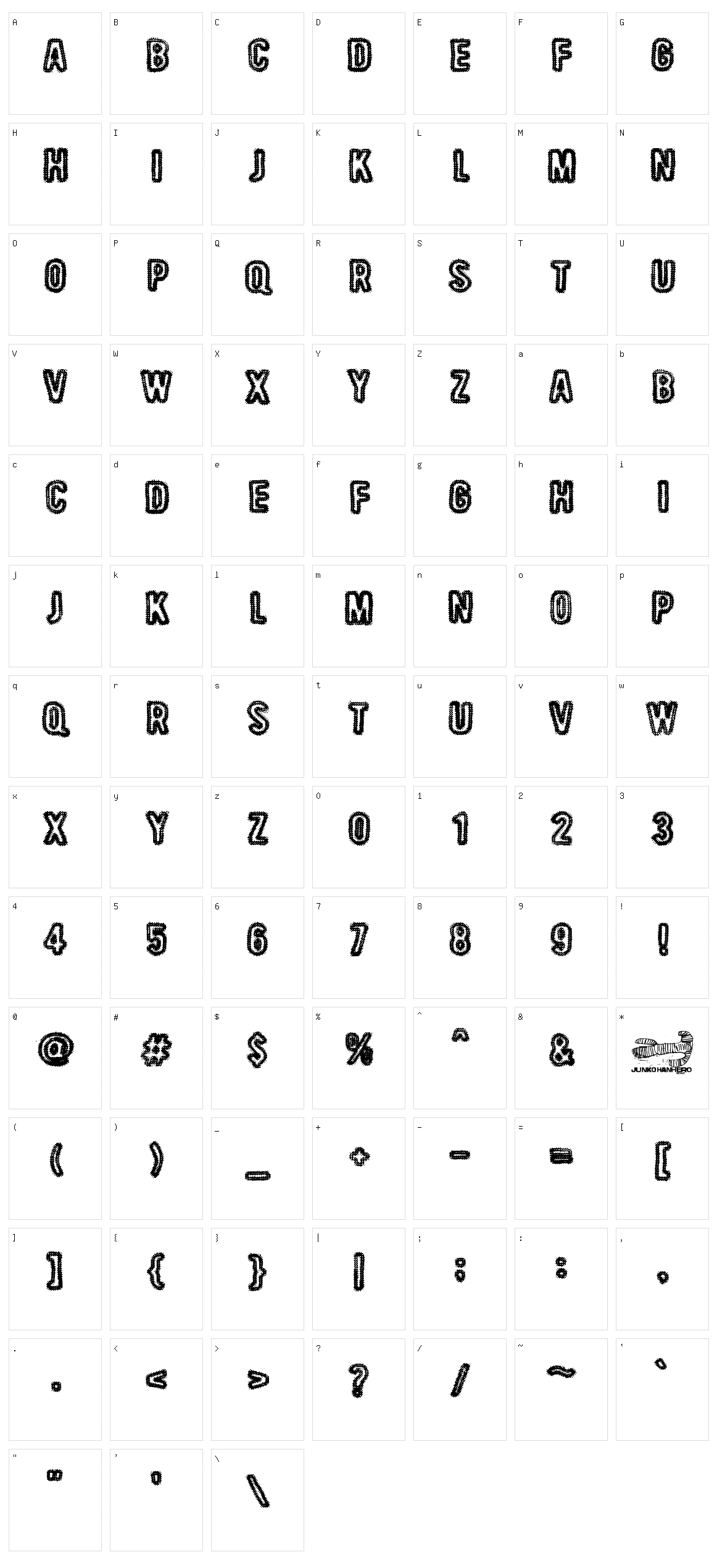
The free font Beast Of Burden is carefully designed by junkohanhero, showcasing a thoughtful balance of creativity and usability and falls under the Distorted font style. When you download the ZIP file, it contains only 632.97 KB of font files, making it lightweight and quick to download. Please review the license details below to understand permitted usage and distribution rights. If license information is not available, we recommend using this font for personal projects only or contacting the author directly for commercial usage permissions.